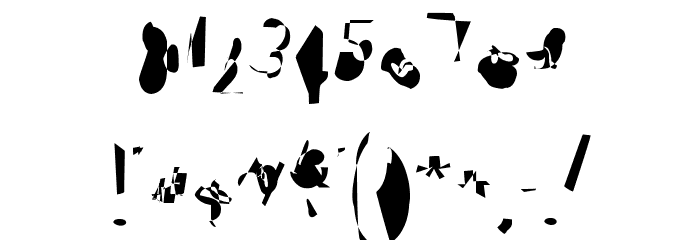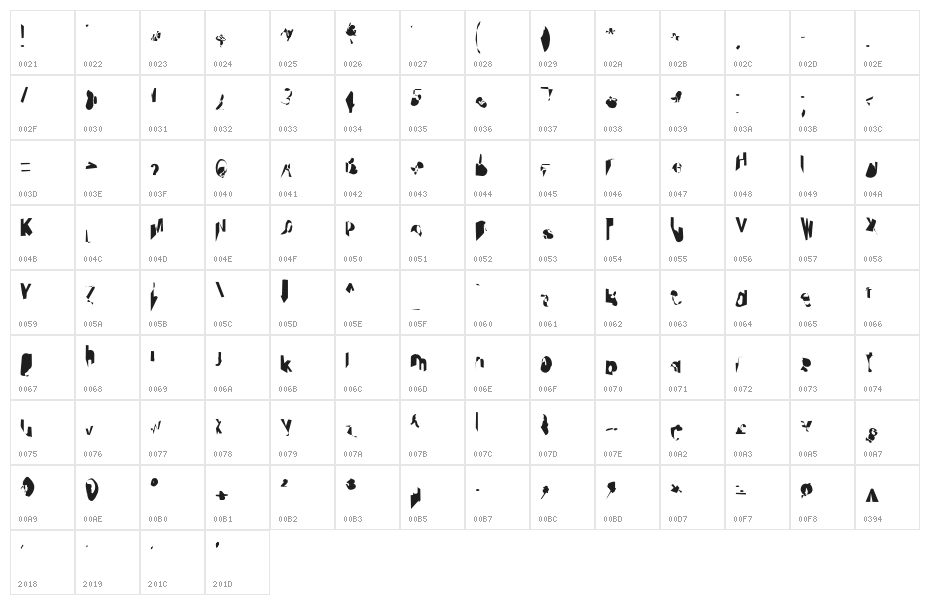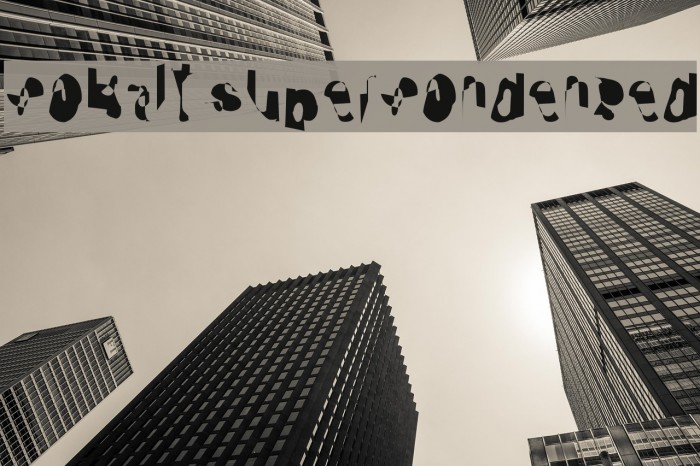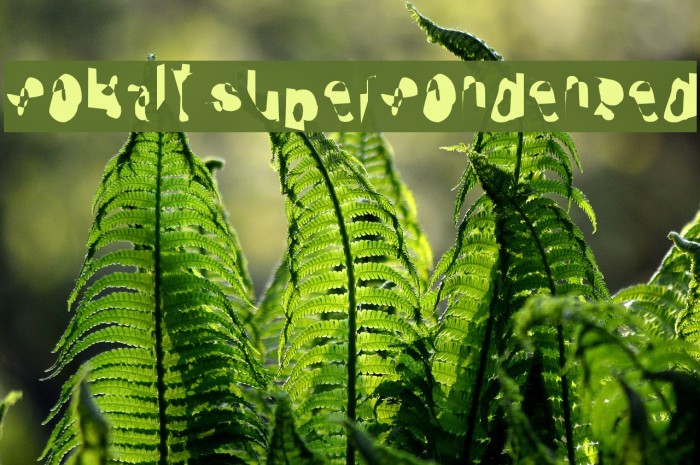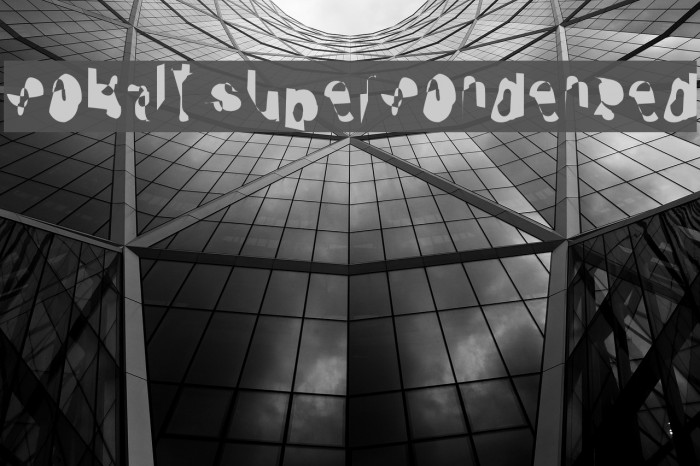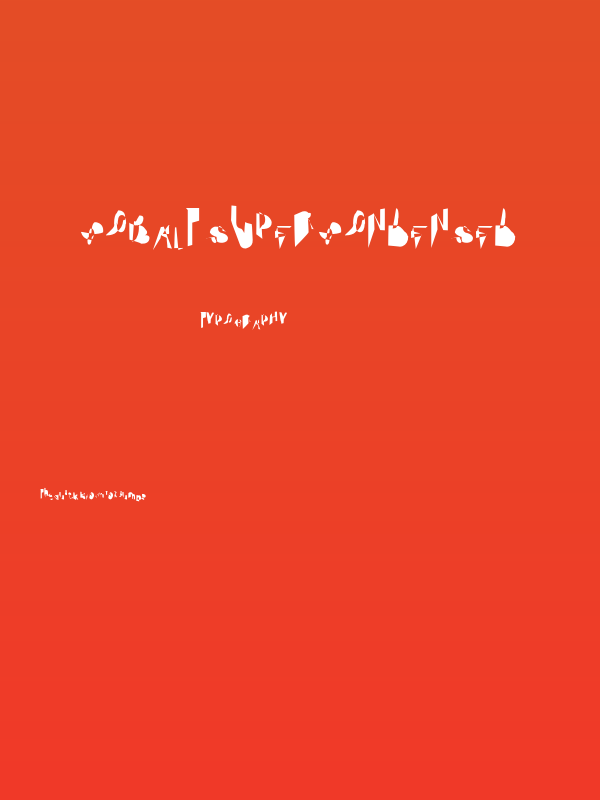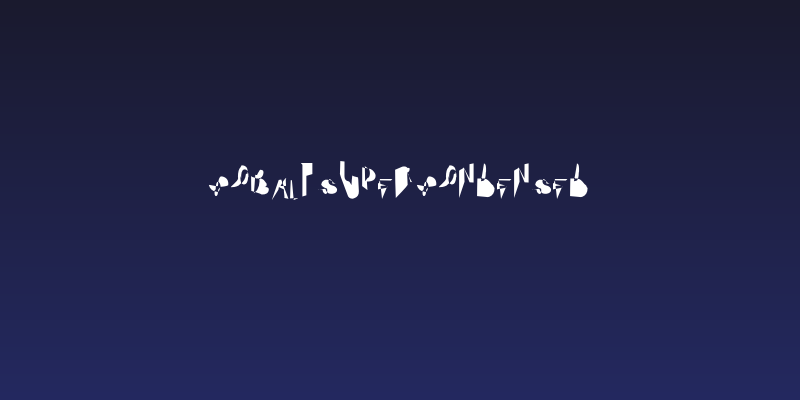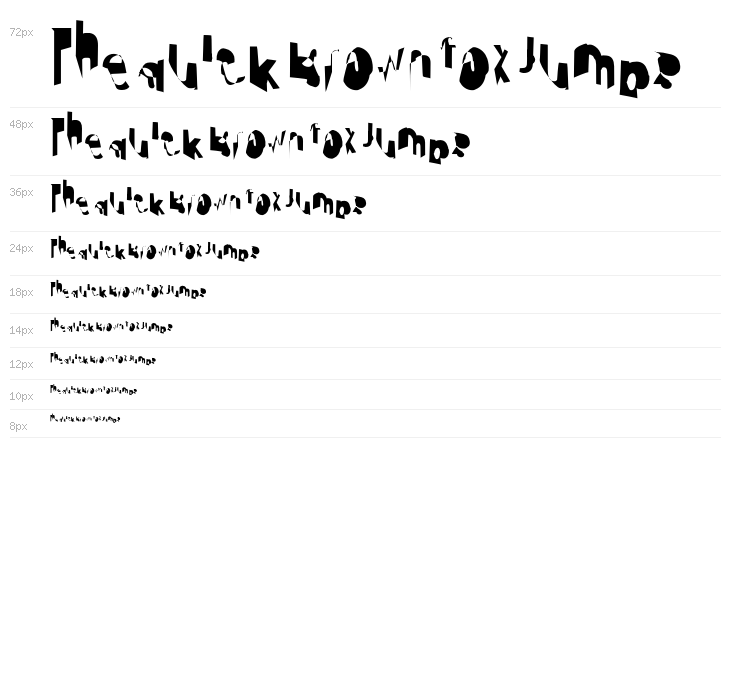
Cobalt SuperCondensed Font
Cobalt SuperCondensed Description
This font features a highly abstract and fragmented design, characterized by its super condensed and distorted letterforms. Each character appears as if it has been shattered or sliced, creating a unique and chaotic visual effect. The uppercase and lowercase letters, as well as numbers and special characters, follow this unconventional style, making it stand out dramatically. The font's irregular shapes and sharp angles contribute to its modern and avant-garde appearance, making it suitable for projects that require a bold and artistic statement.
| Use Case | Logos, Headlines, Artistic displays |
| Proposed Projects | Ideal for experimental designs, album covers, avant-garde posters, and modern art projects. |